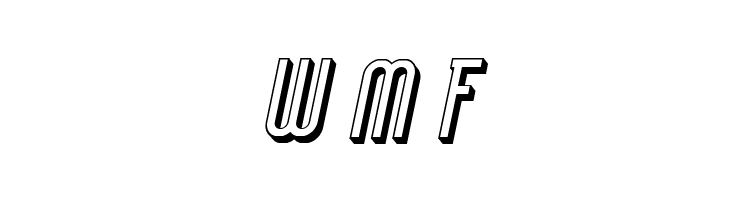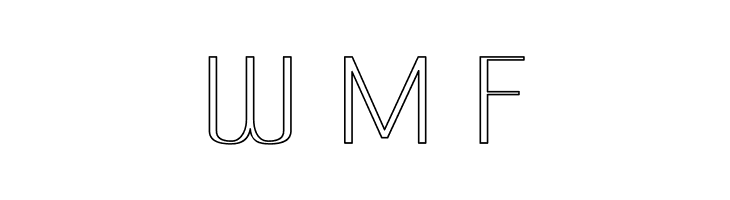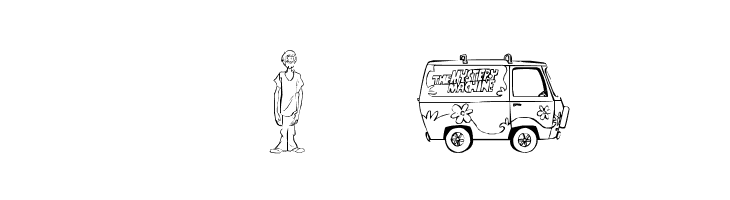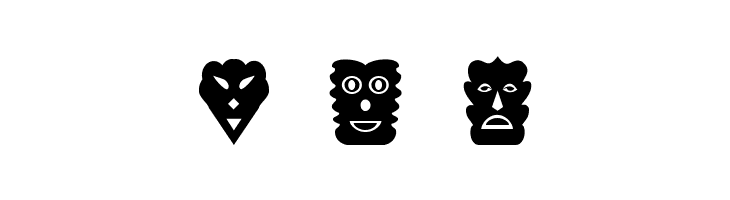
A bold, tribal-inspired font with sharp, angular edges and intricate detailing.
A bold, gothic-inspired italic font with sharp, angular edges and dramatic flair.
A bold, geometric font with sharp angles and minimal contrast.
A bold, geometric font with a modern and structured design.
A bold, 3D italic font with a modern and dynamic style.
A bold, superwide font with a modern and uniform design.
A modern, geometric font with a 3D outline effect, offering a unique and bold appearance.
A modern, condensed italic font with sleek, elongated characters.
A modern, geometric unicase font with elongated, narrow characters.
A modern, geometric outline font with a superwide and airy design.
A bold, condensed, and modern unicase font with a geometric style.
A modern, outline-style font with tall, narrow characters and a sleek appearance.
A modern, minimalist outline font with tall, narrow characters and consistent stroke width.
A bold, italic, and modern font with a sleek, dynamic style.
A bold, oblique font with a dynamic and modern style.
A hand-drawn, sketch-like font with bold outlines and artistic flair.
A classic serif font with a textured, vintage appearance.
A hand-drawn, rustic font with uneven strokes and a whimsical style.
A bold, textured font with a handcrafted, artistic style.
A decorative font with a blend of modern and vintage styles, featuring playful serifs and whimsical letterforms.
Font made from intricate classical statue illustrations.
Hand-drawn gnome illustrations form each letter and number.
A decorative font with mask-like, abstract characters.
A decorative font inspired by ancient Mayan glyphs, featuring intricate and bold designs.